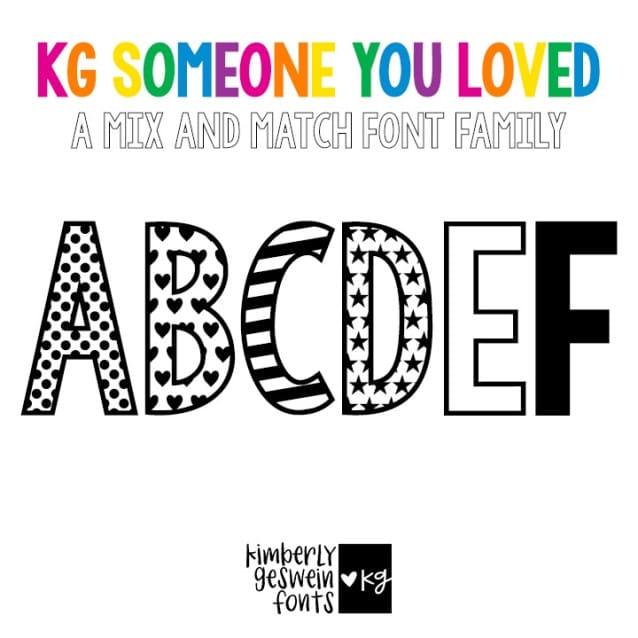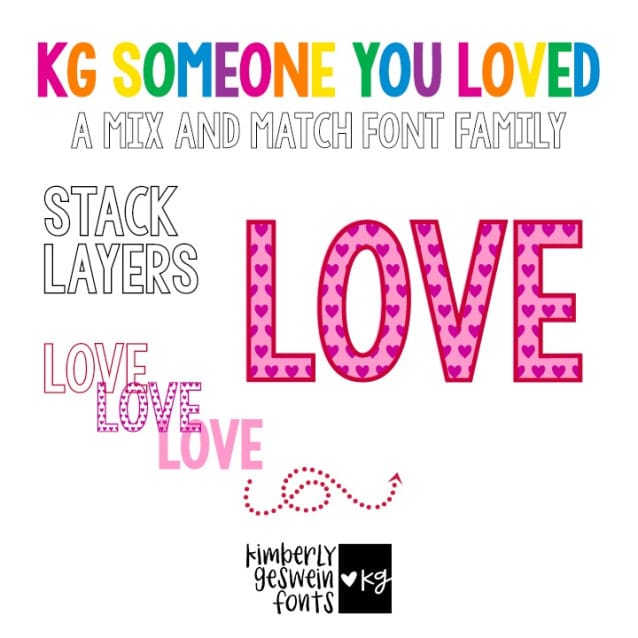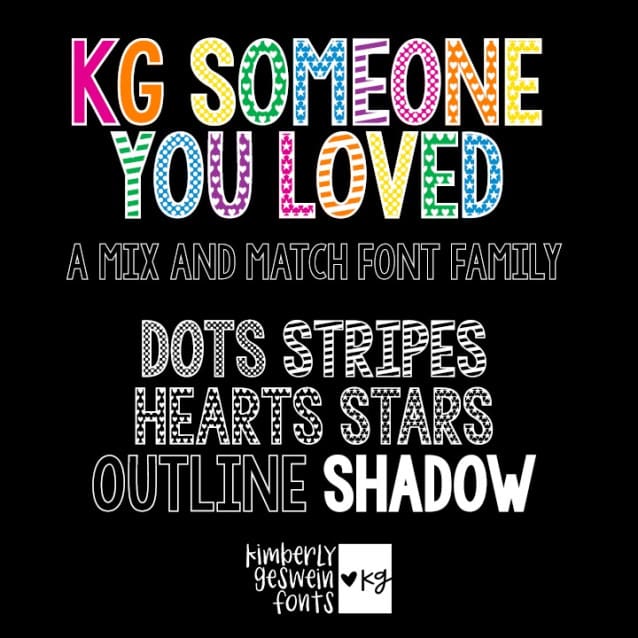
KG Someone You Loved Font
KG Someone You Loved Font is a fun stackablefont family, created by Kimberly Geswein in 2024. You’ll find an outline layer, a shadow layer, and four filled versions- one each with stars, hearts, stripes, and dots. Highly legible and highly fun is a great combination!